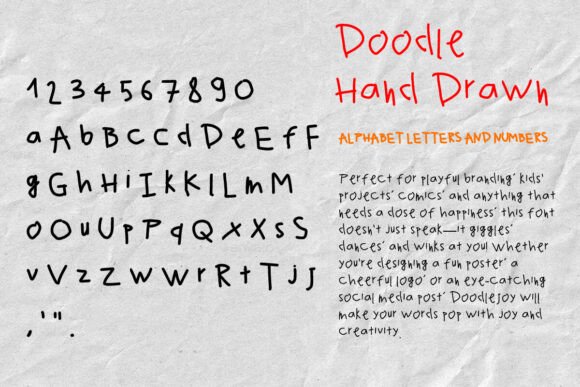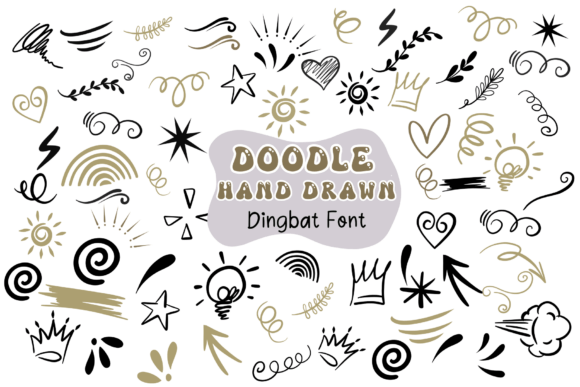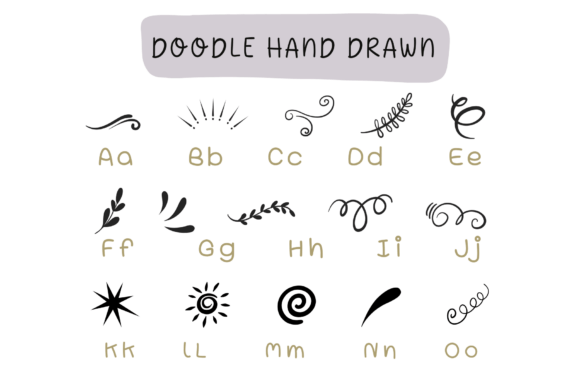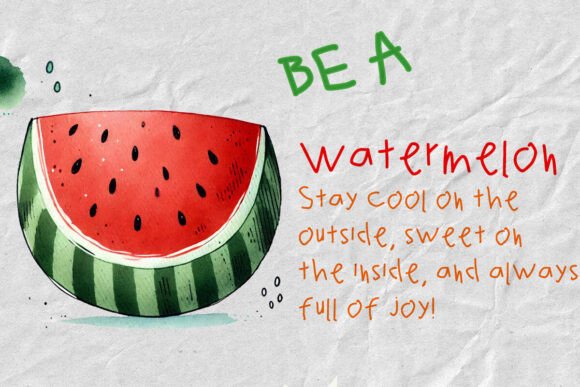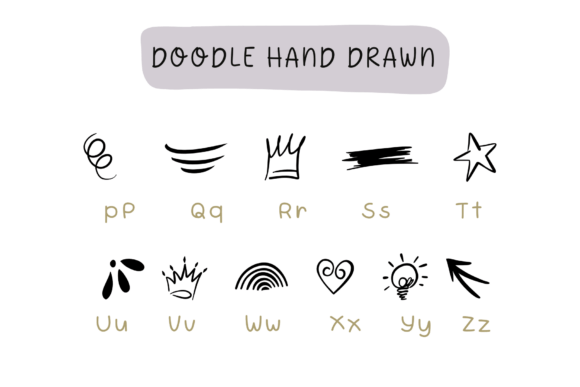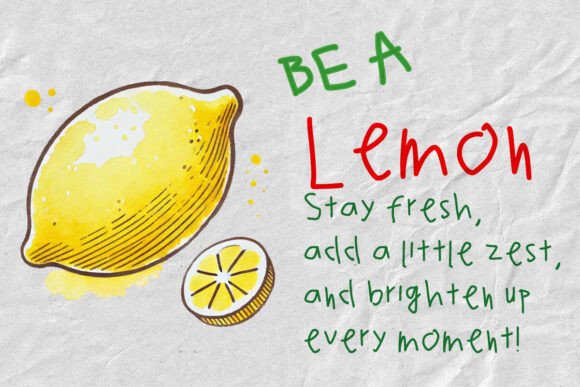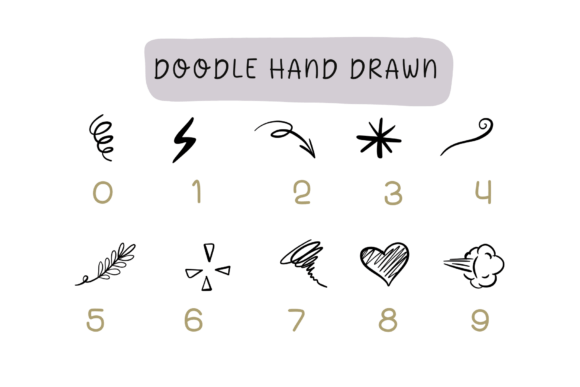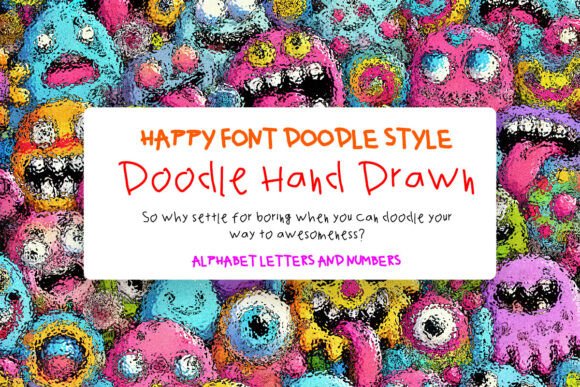
Doodle Hand Drawn Font
About the Doodle Hand Drawn Font
Unleash your creativity with Doodle Hand Drawn Font, a versatile font perfect for a wide range of applications. Doodle Hand Drawn Dingbat Font is a whimsical and creative dingbat font filled with playful hand-drawn elements like crowns, arrows, stars, hearts, swirls, and sunbursts. Perfect for adding charm and personality to your journals, planners, social media posts, or kids’ projects. Simply type to insert fun doodles with a hand-crafted touch!
This font shines in projects needing a lighthearted touch, such as children’s books, playful branding for small businesses (e.g., bakeries, toy stores), greeting cards, and social media graphics. It adds visual interest to short headlines or as an accent to other typography. Avoid using it for large bodies of text or UI elements where readability is paramount; the informal nature hinders legibility in extended use.
Pairing it with a clean sans-serif like Open Sans for body text provides a strong contrast, balancing the whimsical doodles with clear, easily readable text. Alternatively, a classic serif like Garamond can add a touch of sophistication, creating a playful yet refined aesthetic. For a more cohesive and playful feel, consider pairing with a similarly hand-drawn script font.
The overall personality is undeniably playful and friendly, conveying a sense of charm and approachability. Its informal nature makes it unsuitable for projects requiring a formal or sophisticated tone.
Doodle Hand Drawn Font Usage Examples
Doodle Hand Drawn Font Example